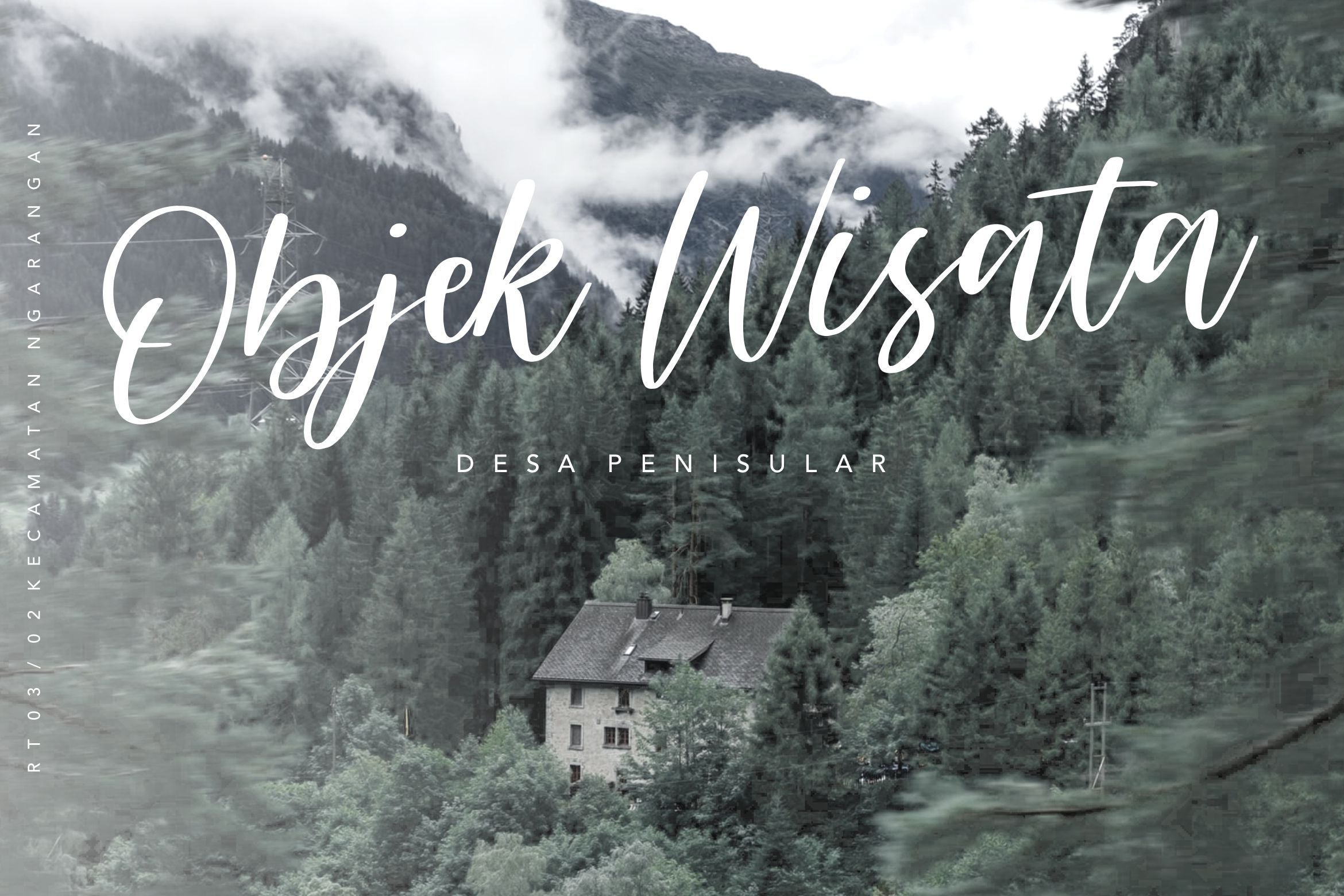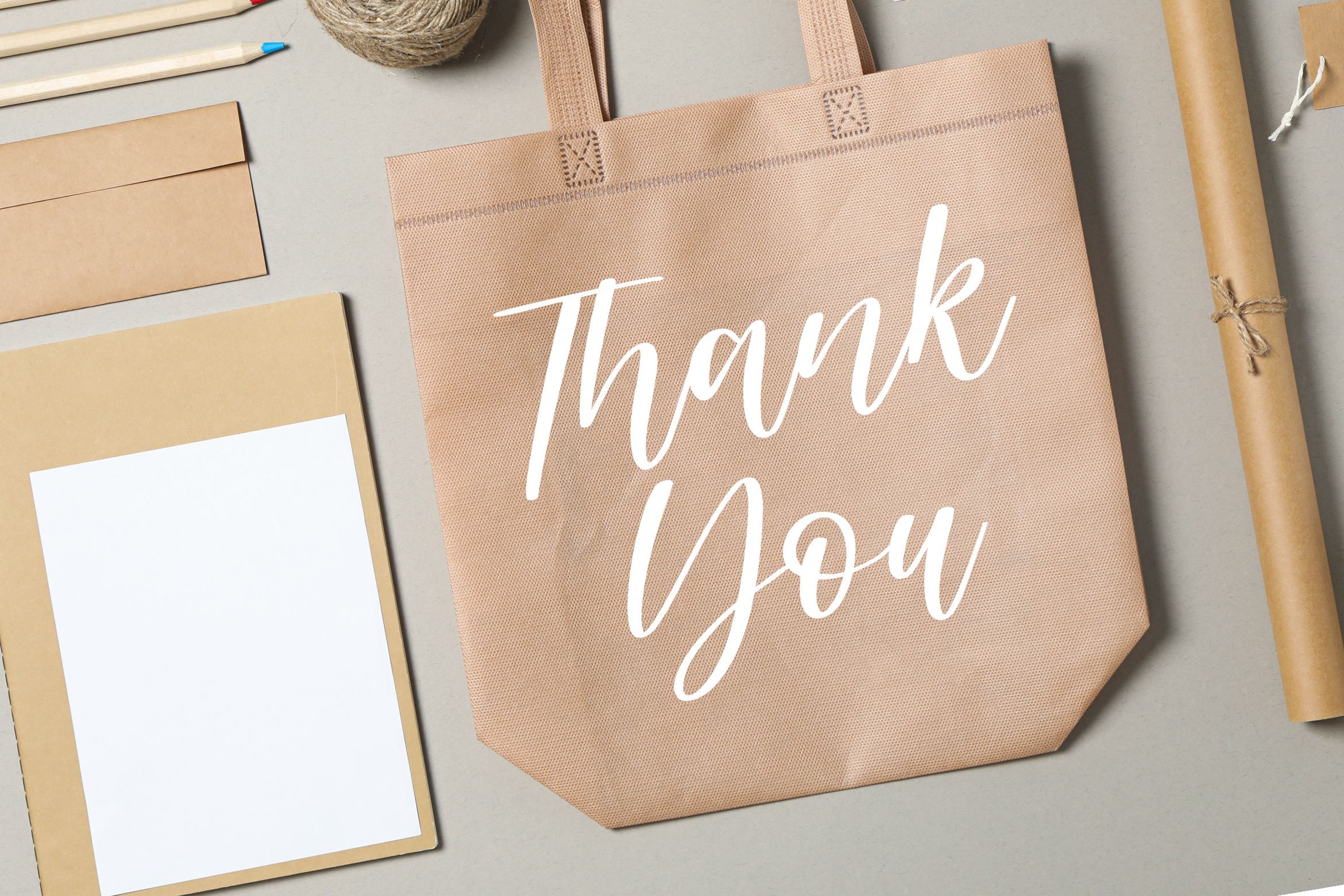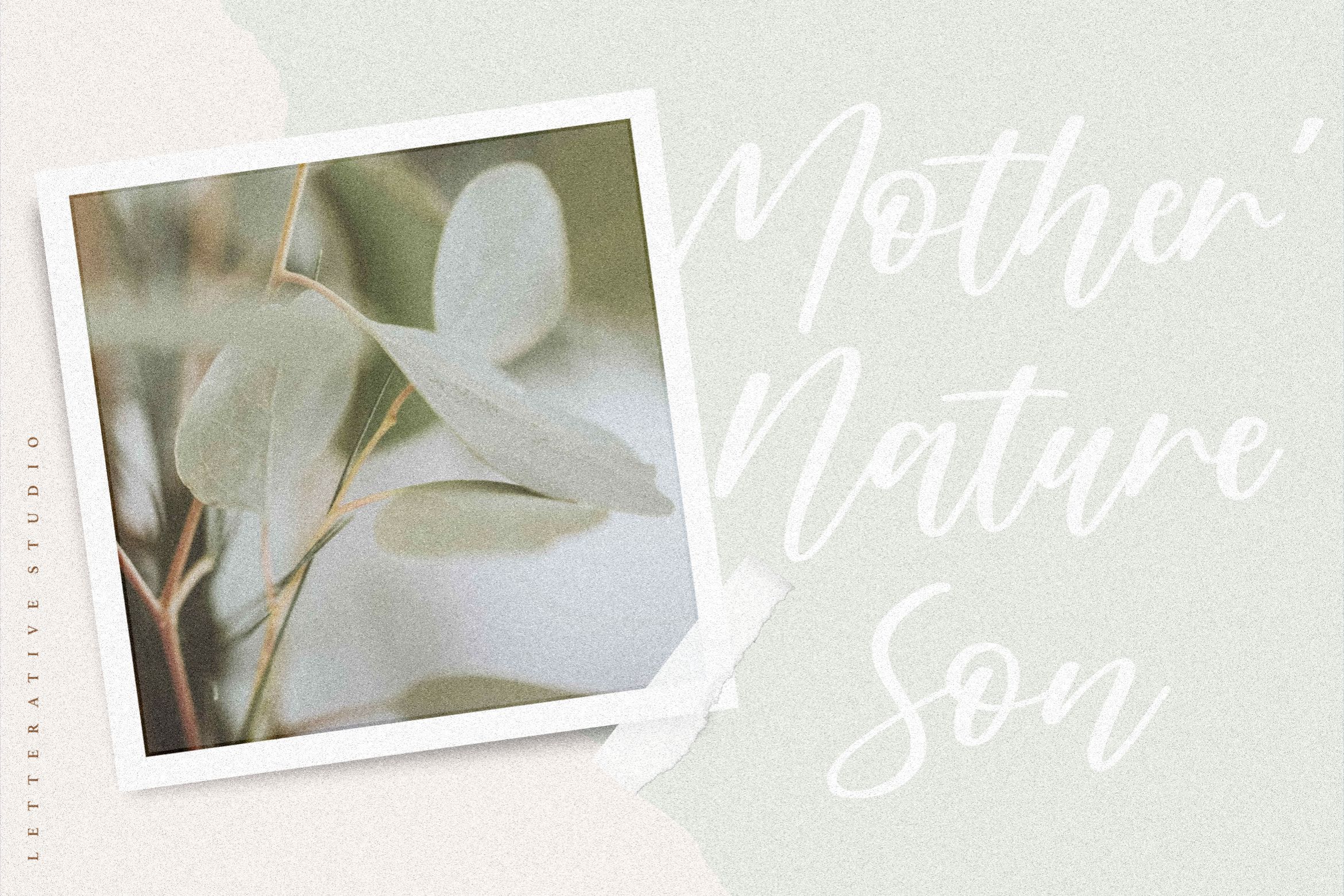
About Miracle Justice Modern Casual Handwritten Script Font
Introducing by Letterative Studio : Miracle Justice Font Miracle Justice is a Modern Casual Handwritten Script Font Miracle Justice is an exquisite handwritten font, designed to become a true favorite. It maintains its classy calligraphic influences while feeling contemporary and fresh. Fall in love with it and bring your projects to the highest levels! This font includes : TTF and OTF Miracle Justice also multilingual support Enjoy the font! Feel free to comment or feedback Send me PM or email Thank you!